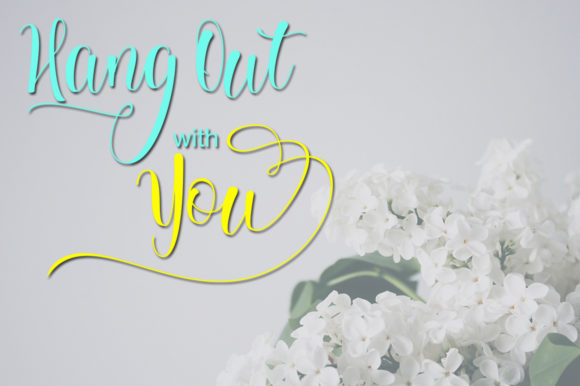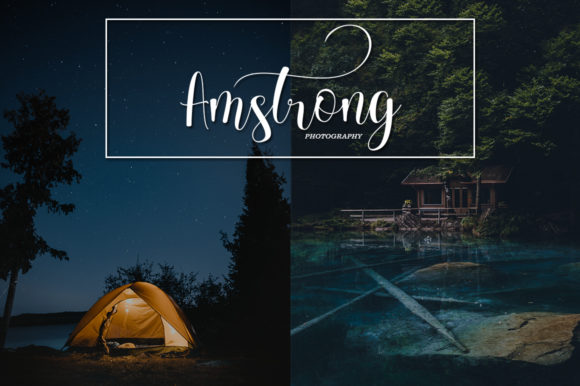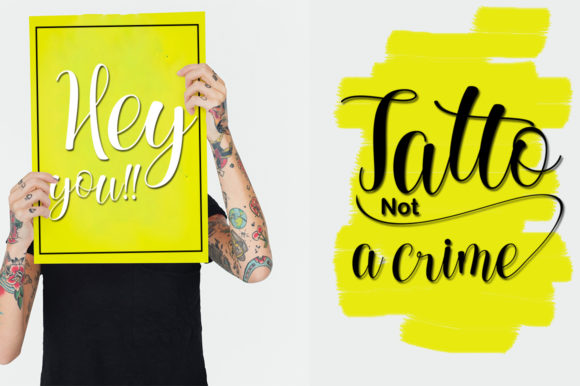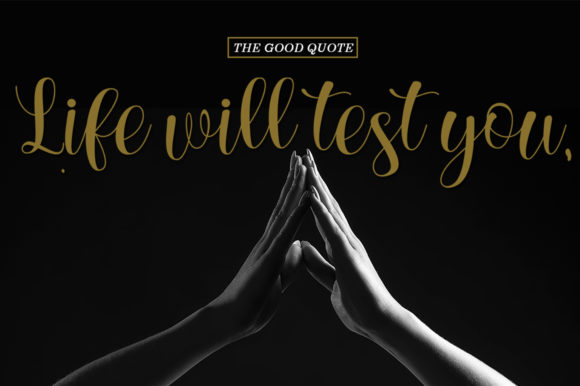
About My Diarys Font
The My Diarys is a modern calligraphy script. It has a beautiful calligraphy style and includes amazing elegant swashes.
It can be used for logos, wedding invitations, branding, headlines, signage, labels, signatures, and much more!